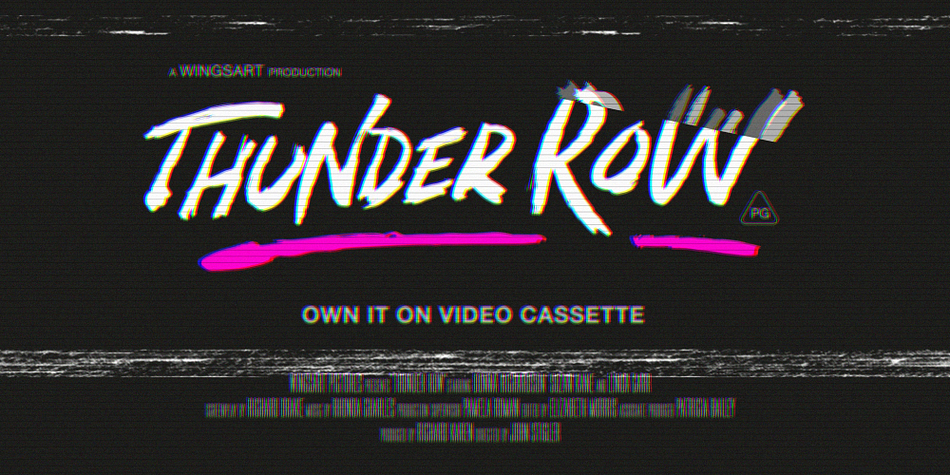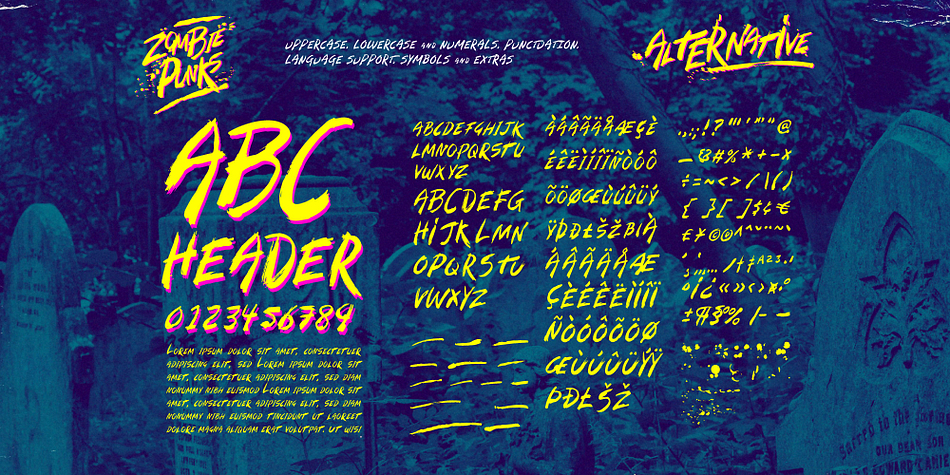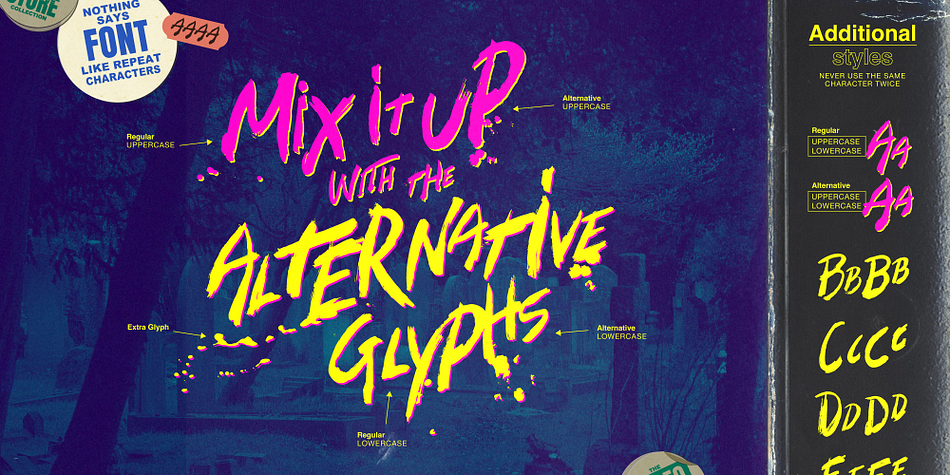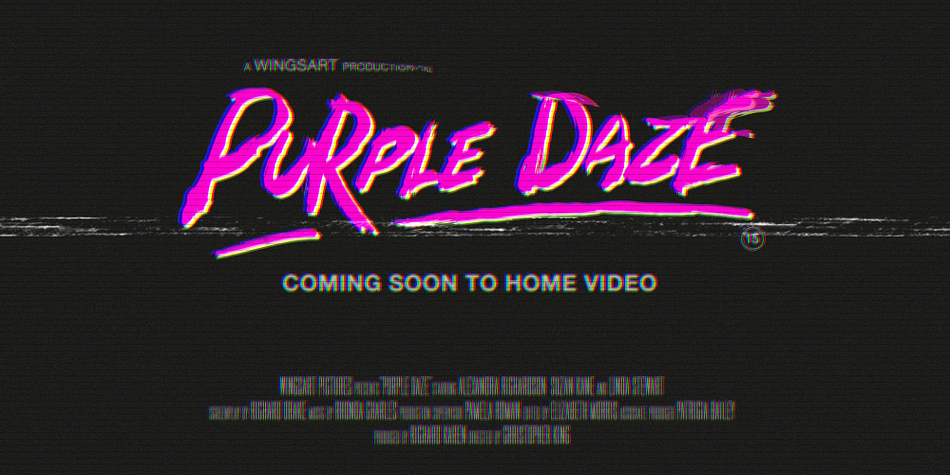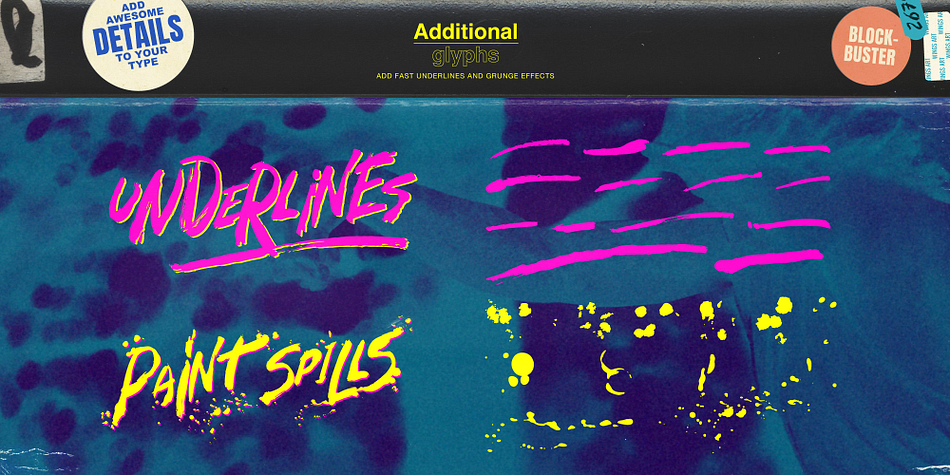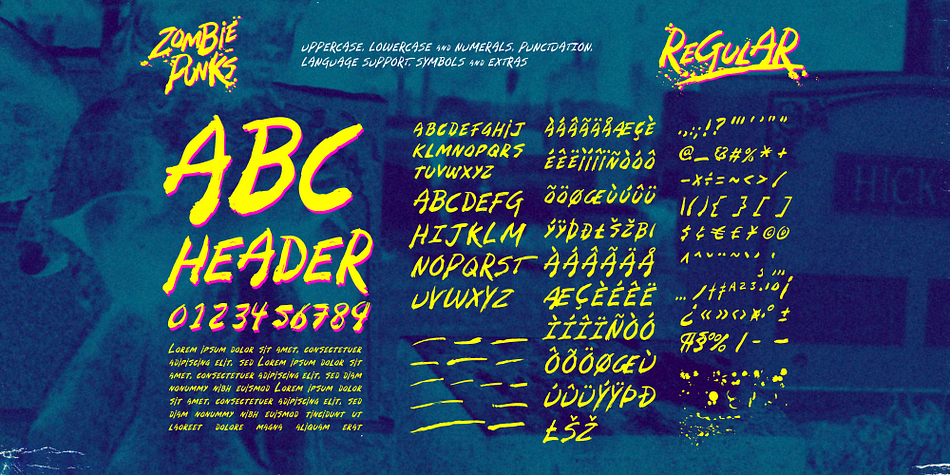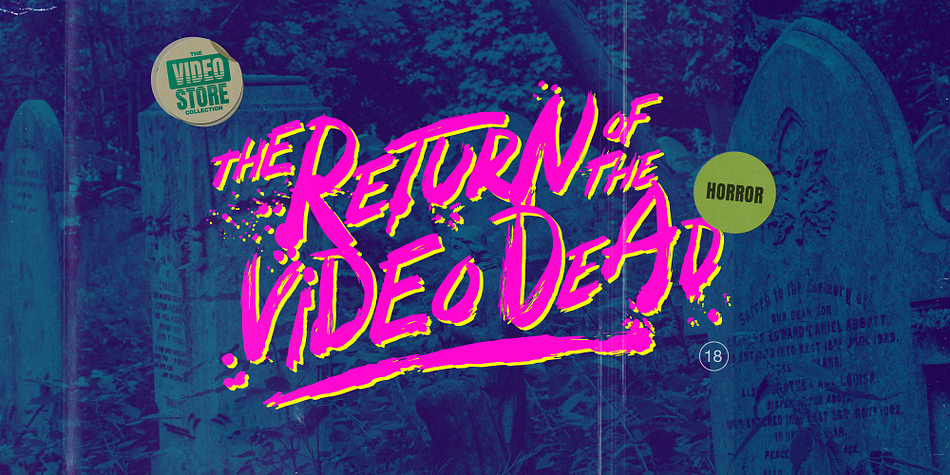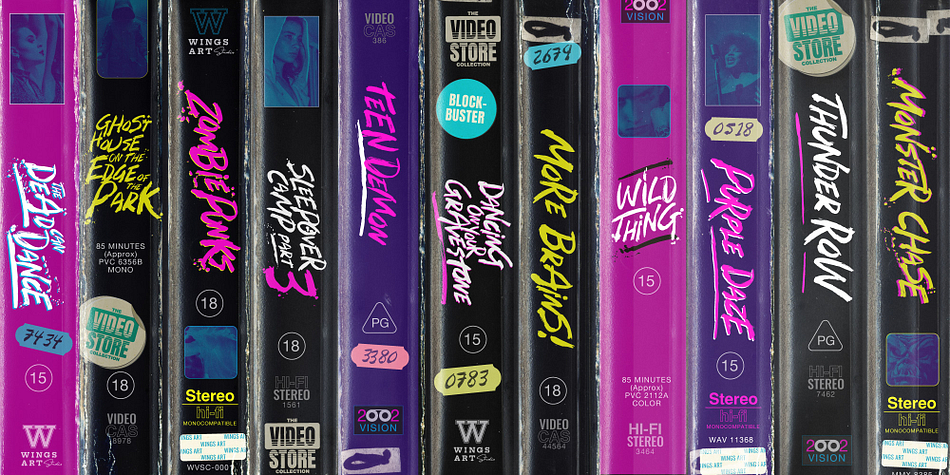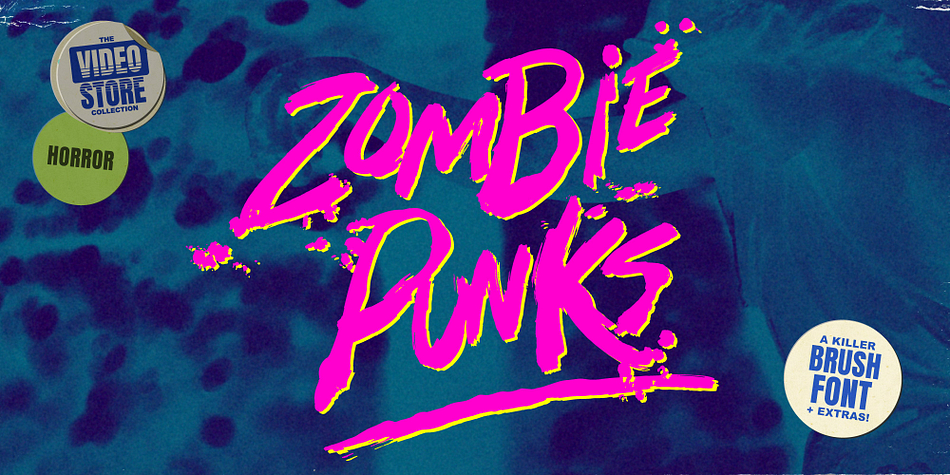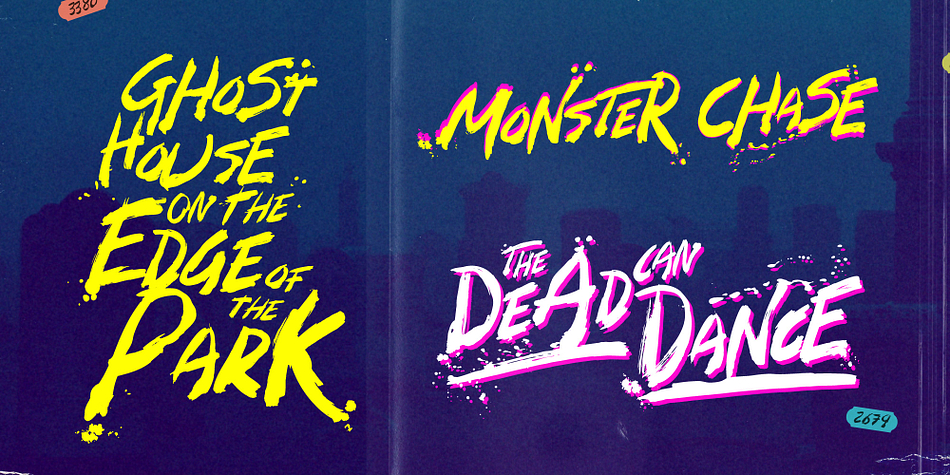
Zombie Punks
Zombie Punks is a brush display and dingbat font family. This typeface has three styles and was published by Wingsart Studio.
This all-caps, horror-inspired font features a retro hand-made look with punctuation, numerals, and language support, along with an alternative set of characters. Perfect for retro movie posters, trailers, book, and album covers.
An 80s horror font inspired by retro VHS covers and the video rental store experience.
Zombie Punks is an 80s horror font with a grungy, hand-drawn style, plus additional underlines and paint spills. The perfect choice for use on movie posters and trailers, album covers, books, and much more.
This all-caps design features punctuation, numerals, and language support along with an alternative set of characters, ensuring that you’ll never have to repeat your e’s or t’s for a more convincing and natural hand-made look. Check out the visuals for more details and cool usage examples.
Zombie Punks: 80s Horror Font